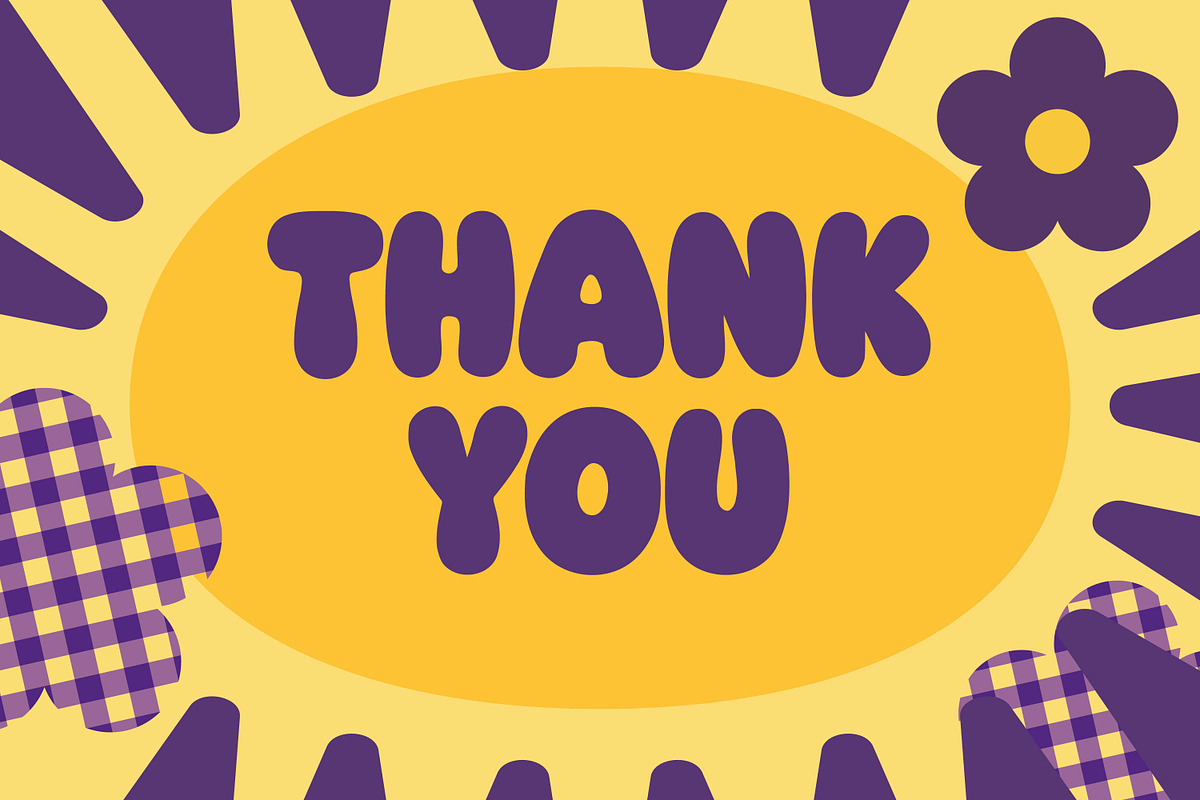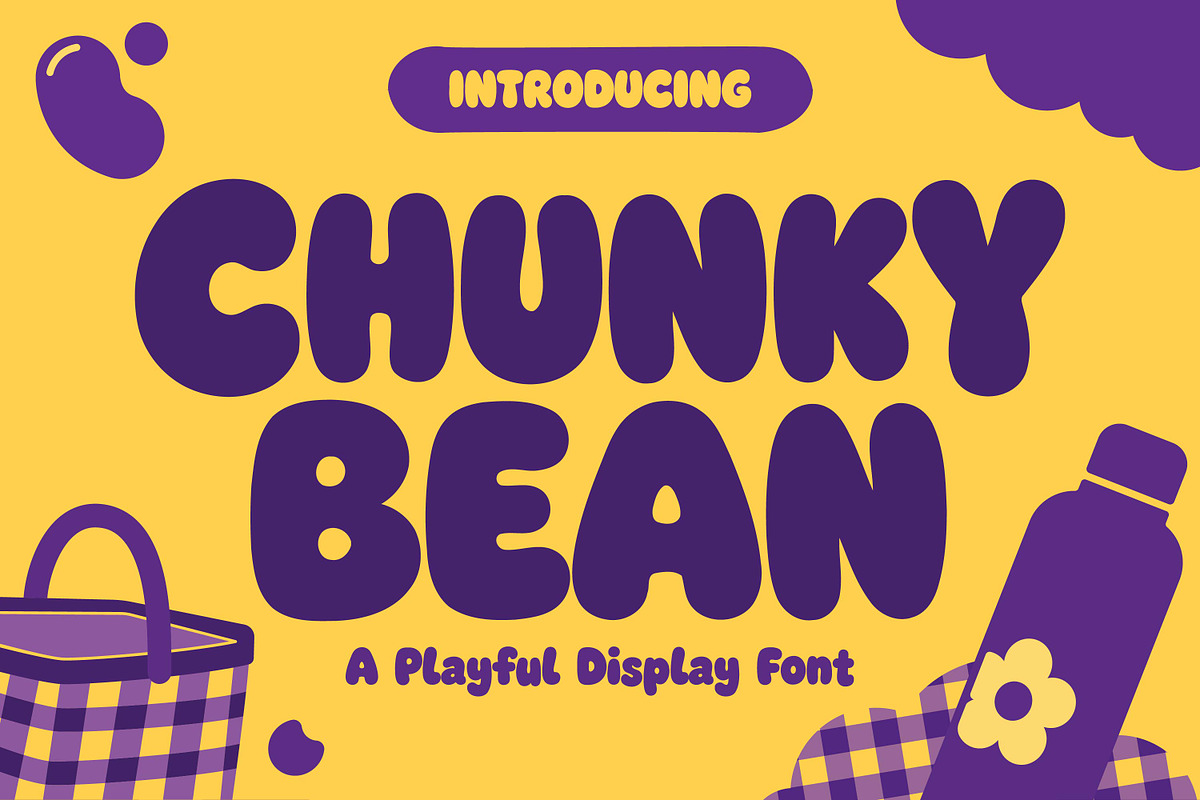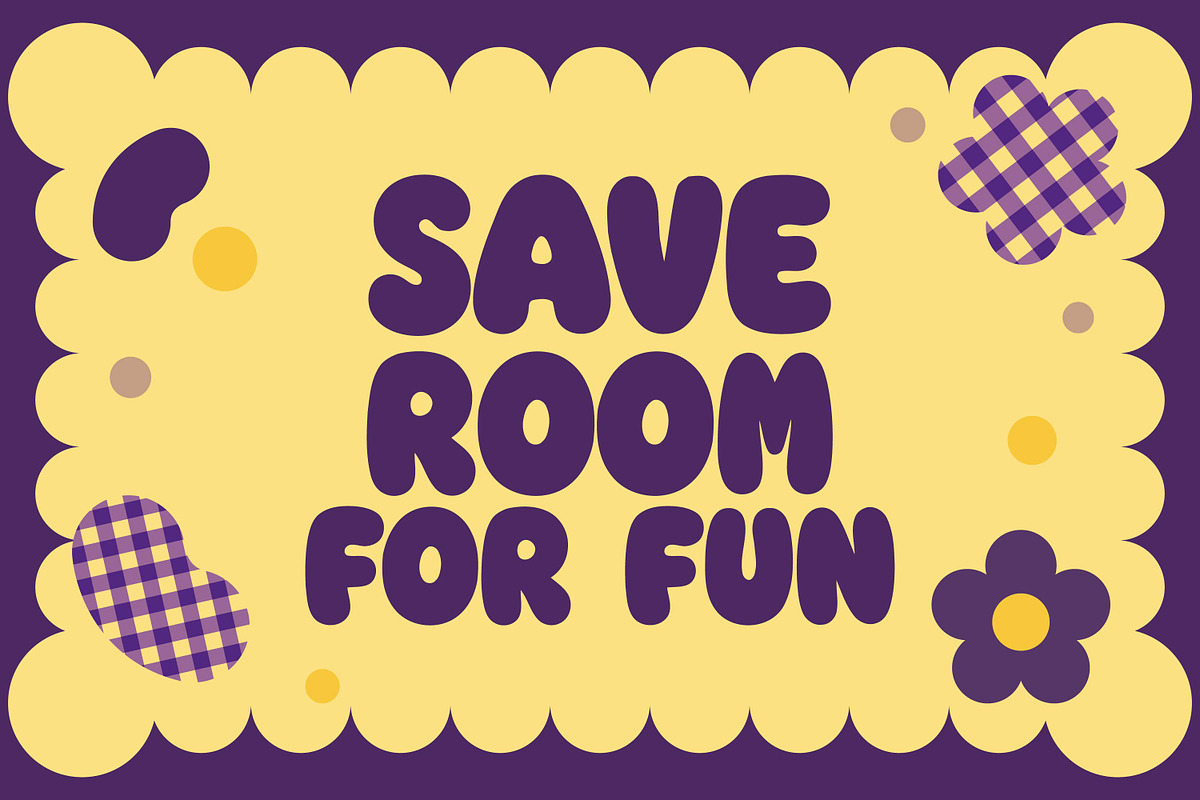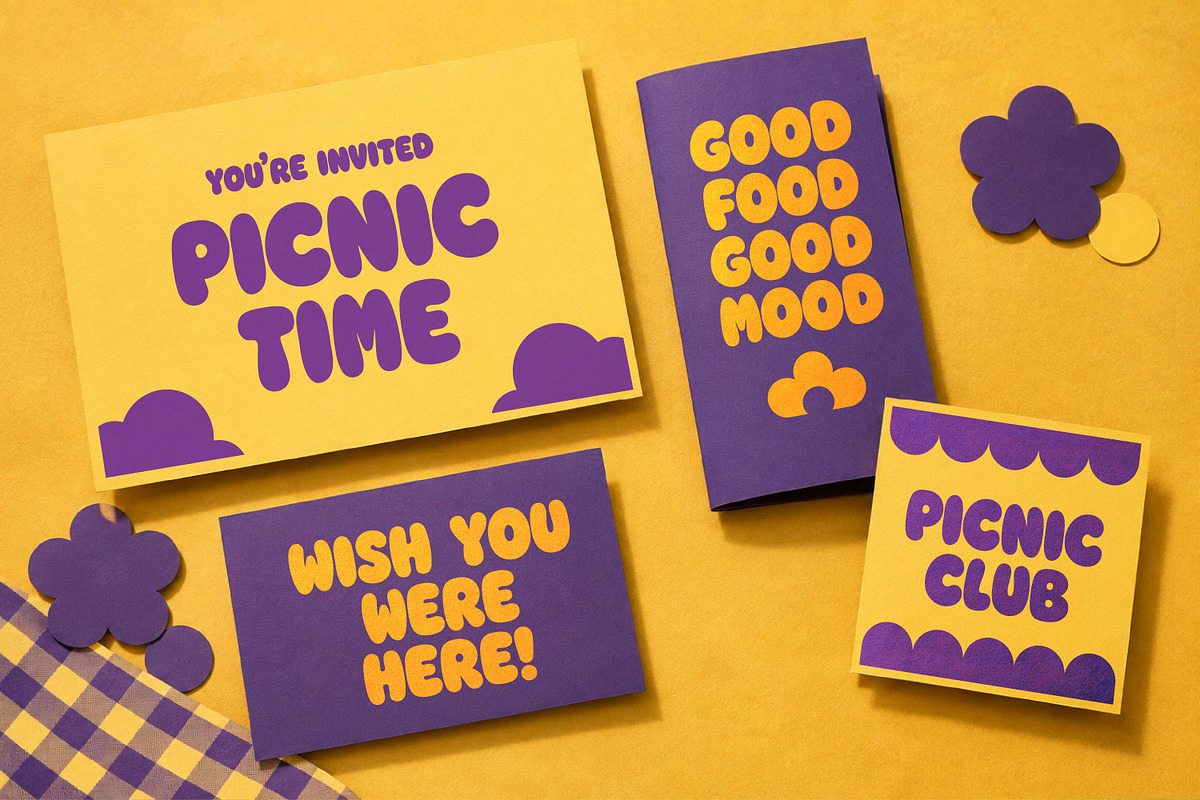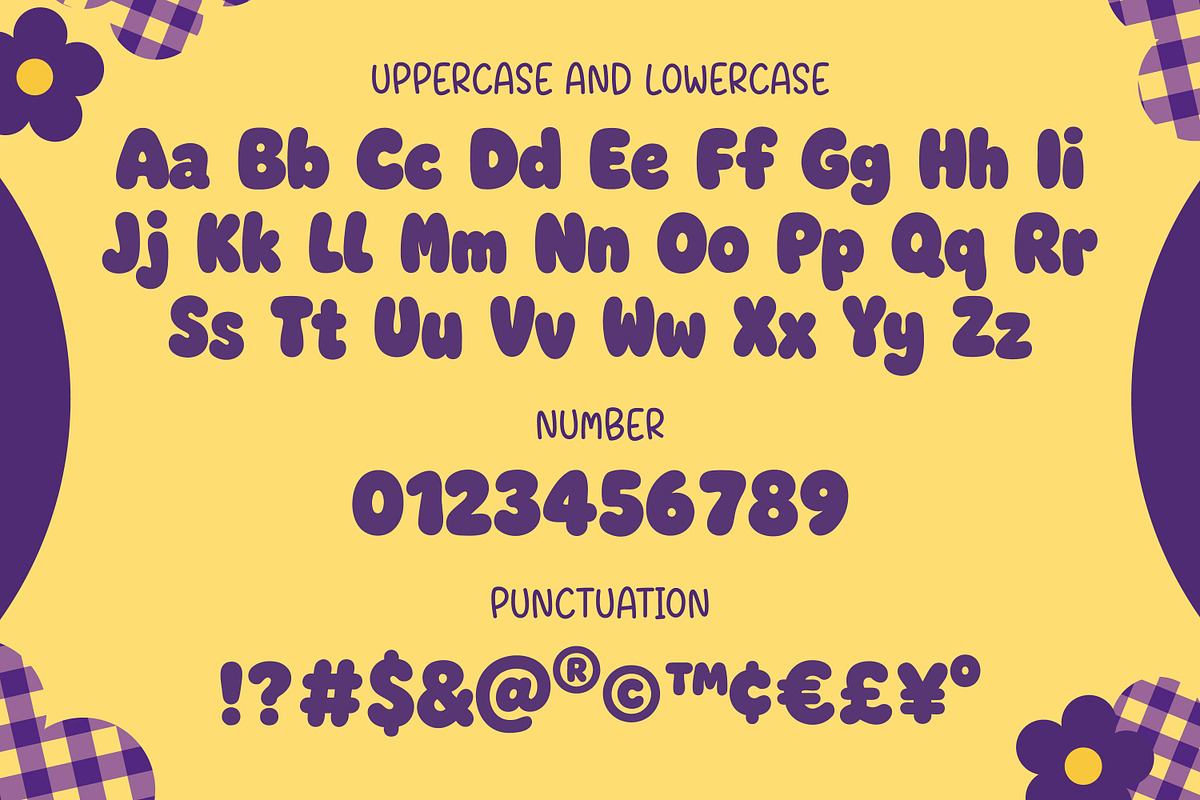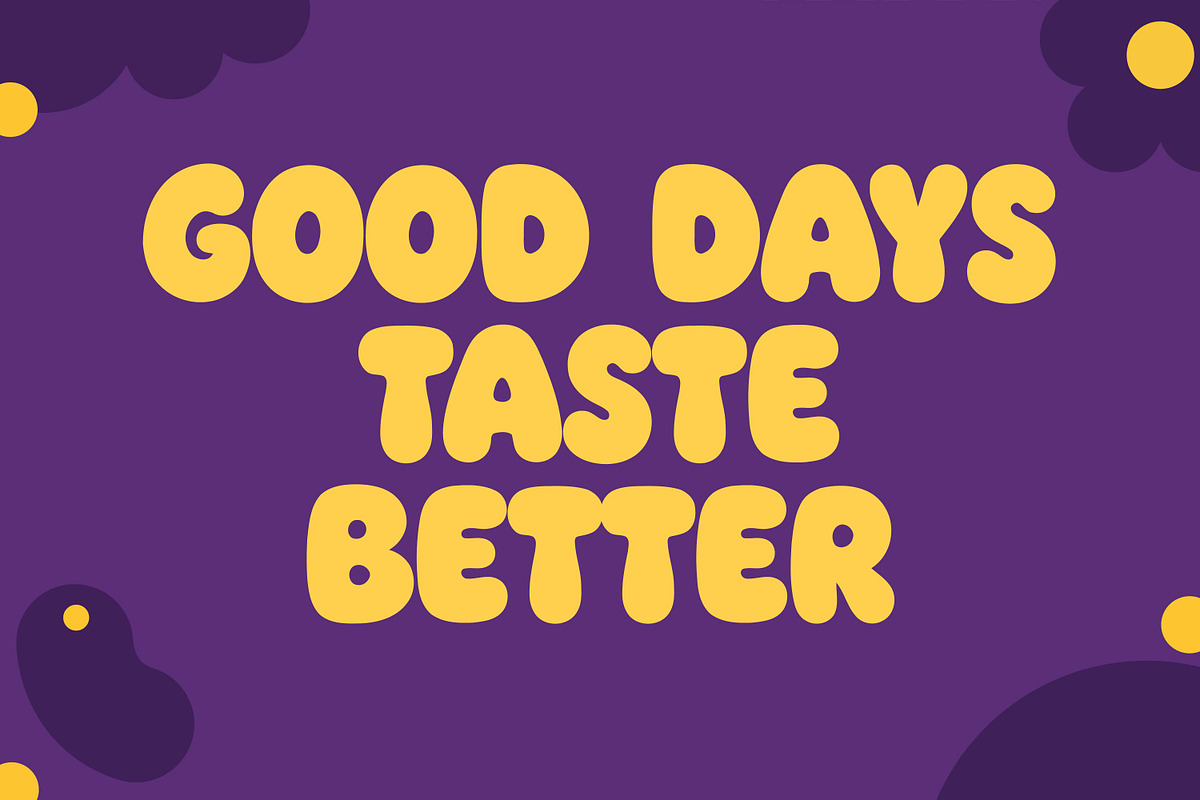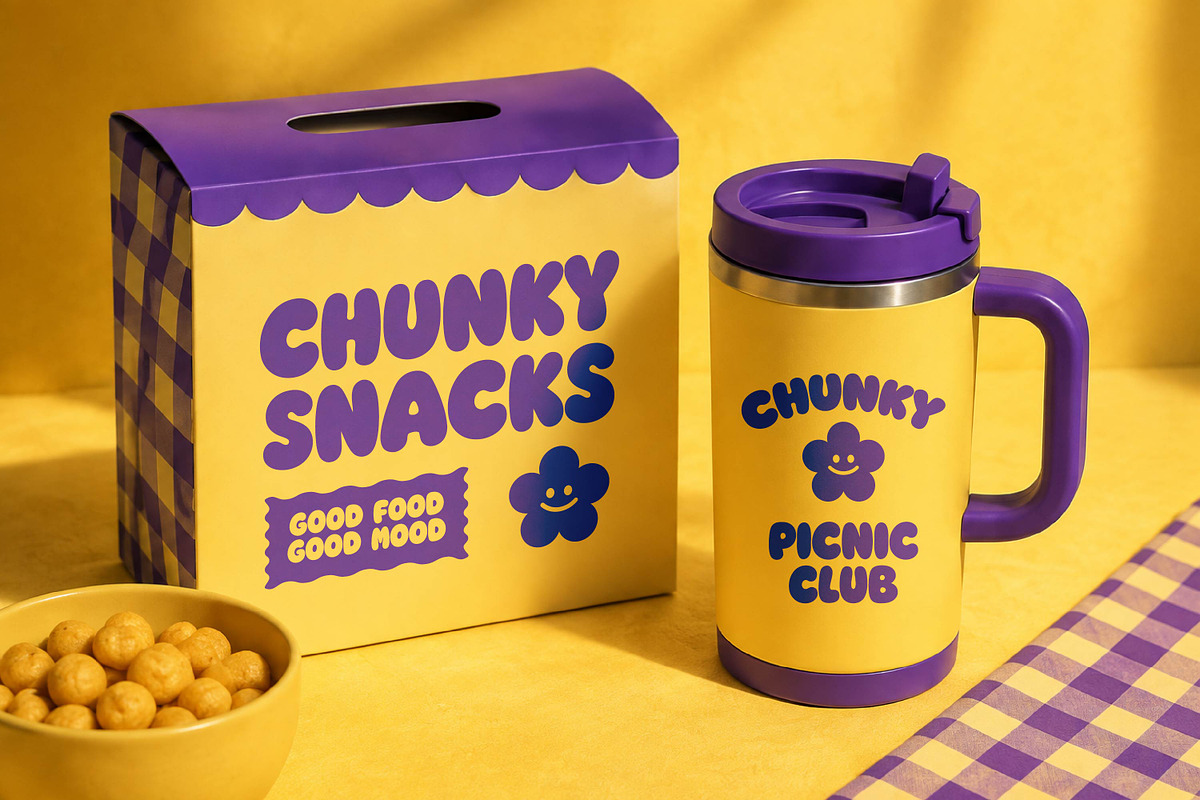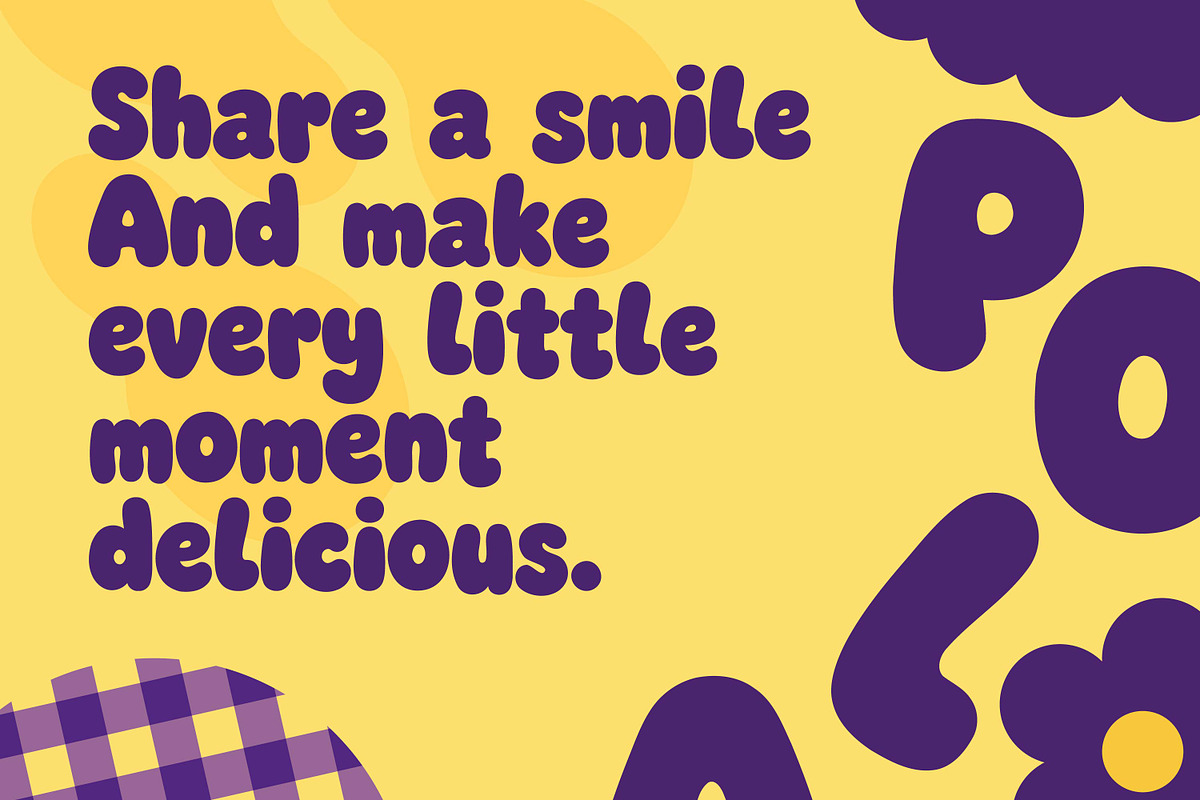
Chunky Bean - Bold Playful Display
Chunky Bean - Bold Playful Display Font
Chunky Bean is a bold and playful display font featuring chunky, rounded letterforms with a fun and friendly personality. Perfect for kids designs, posters, branding, packaging, logos, stickers, merchandise, social media, and cheerful creative projects that need a strong and lovable look.